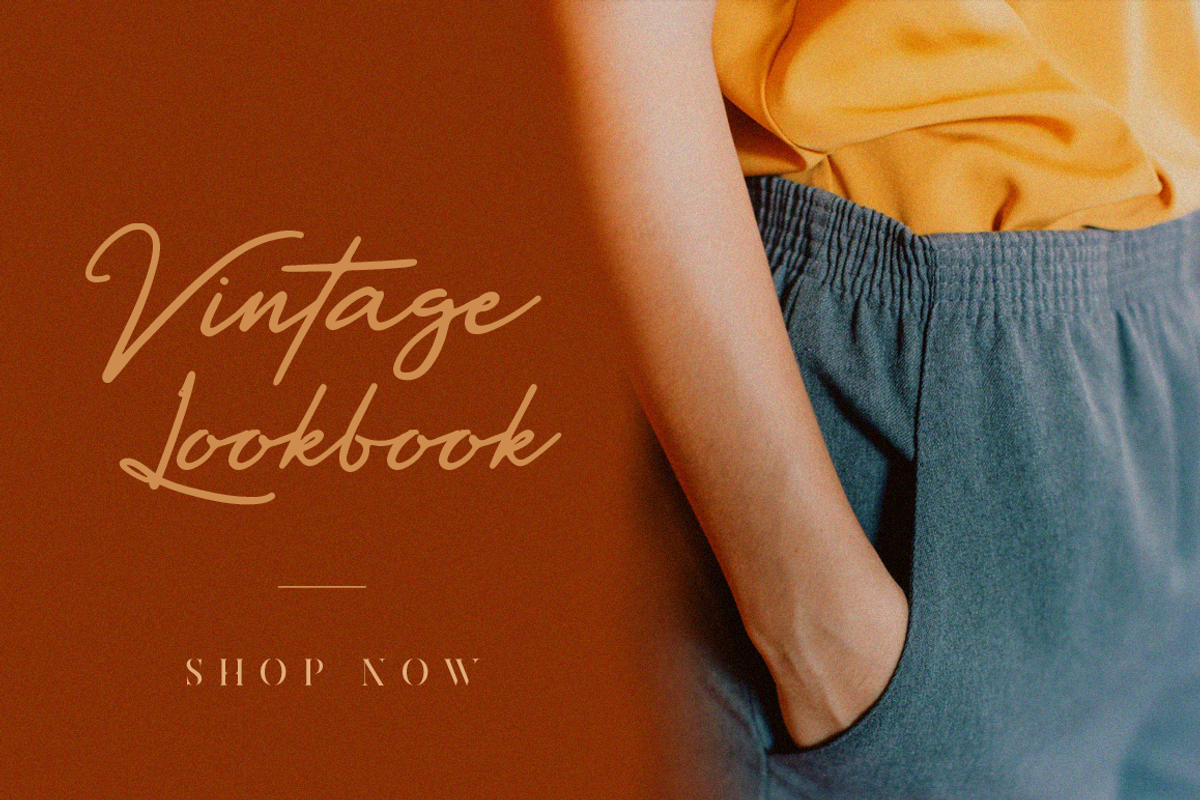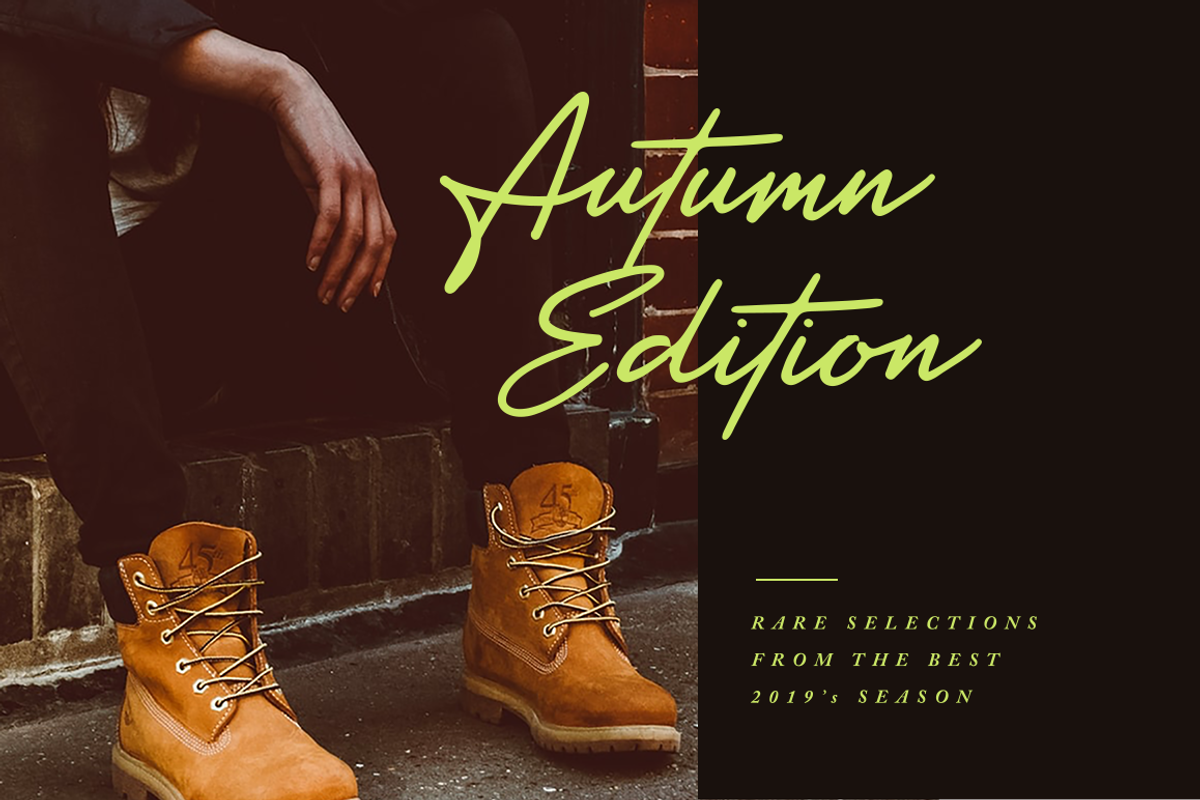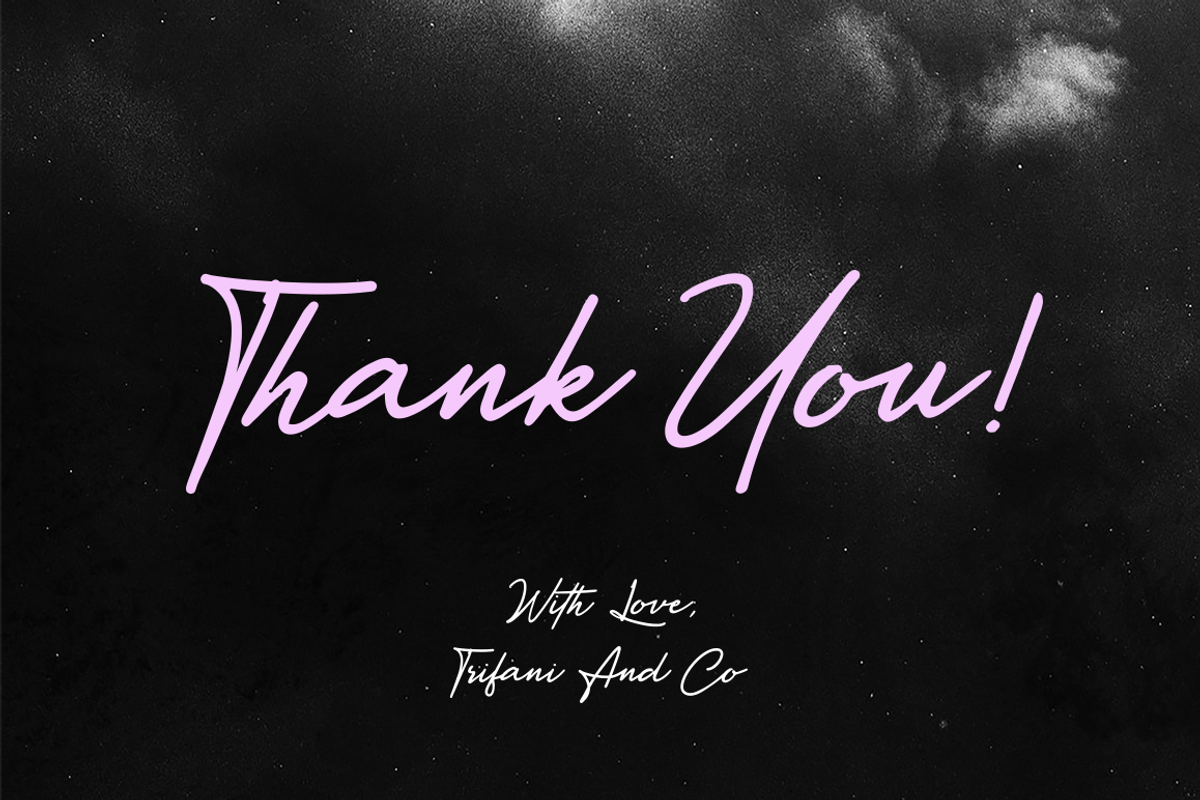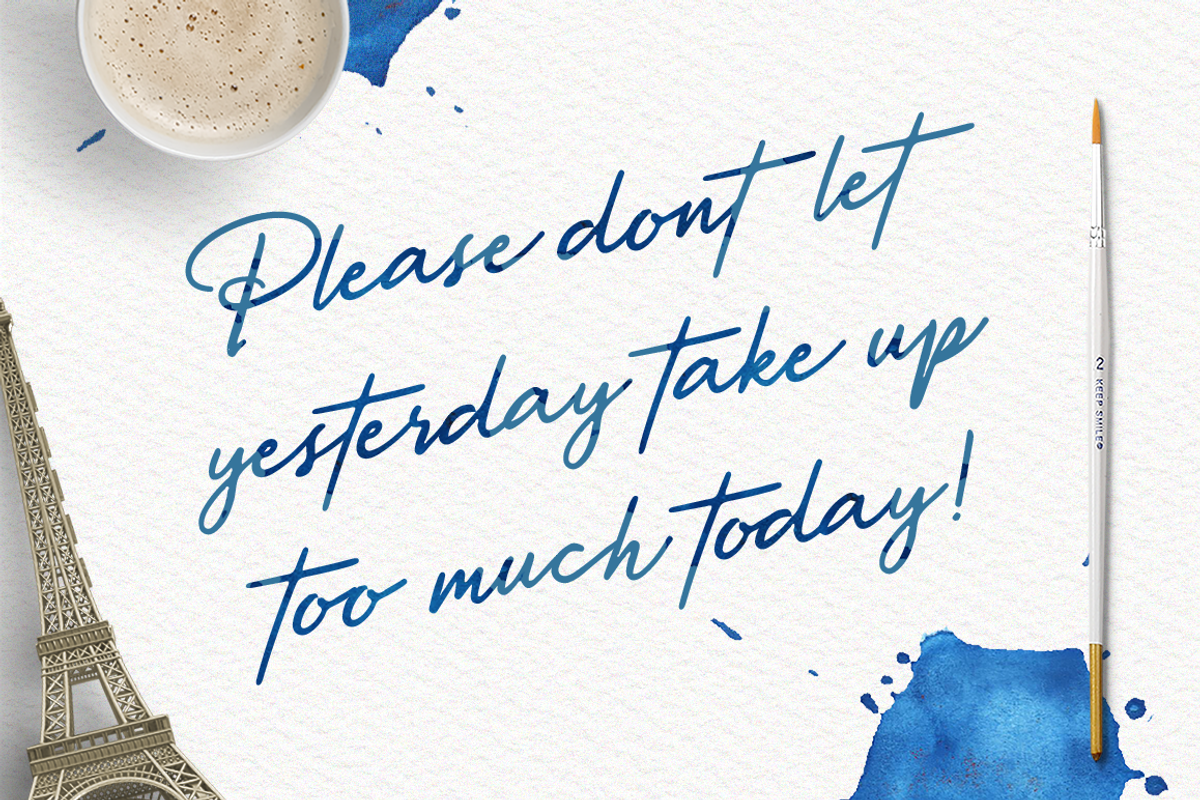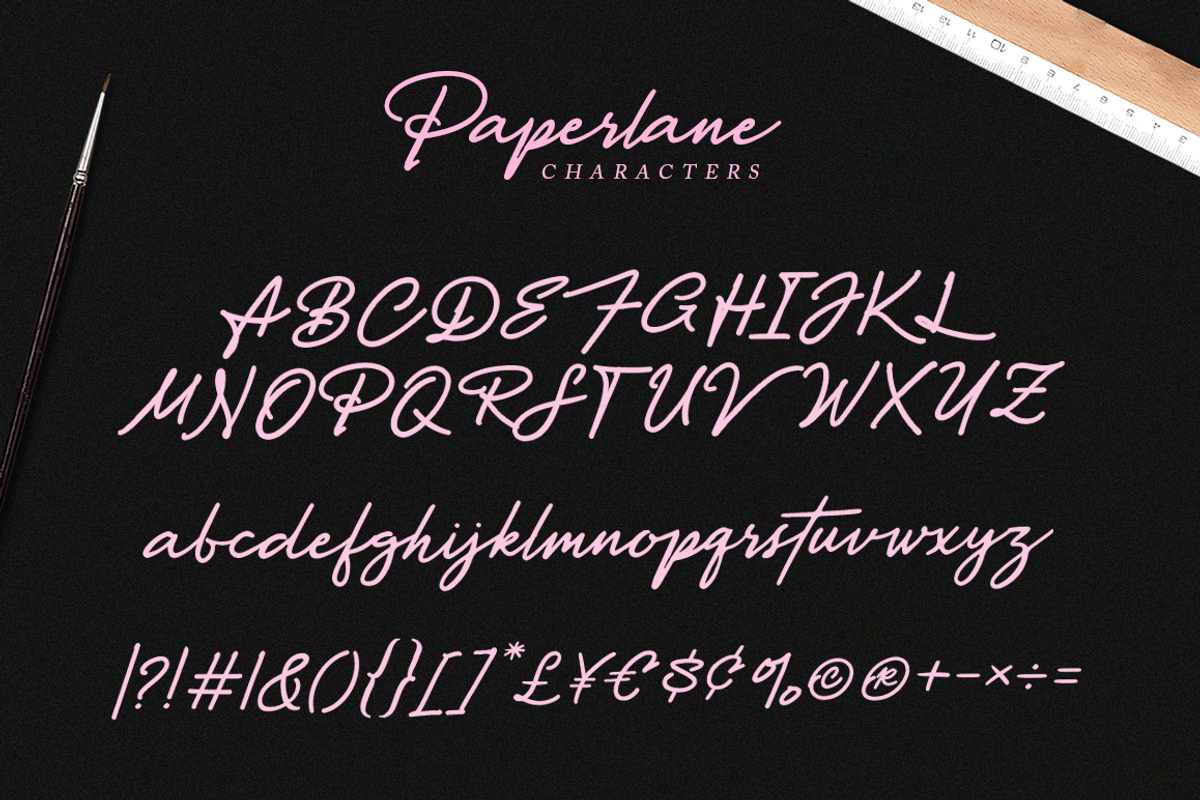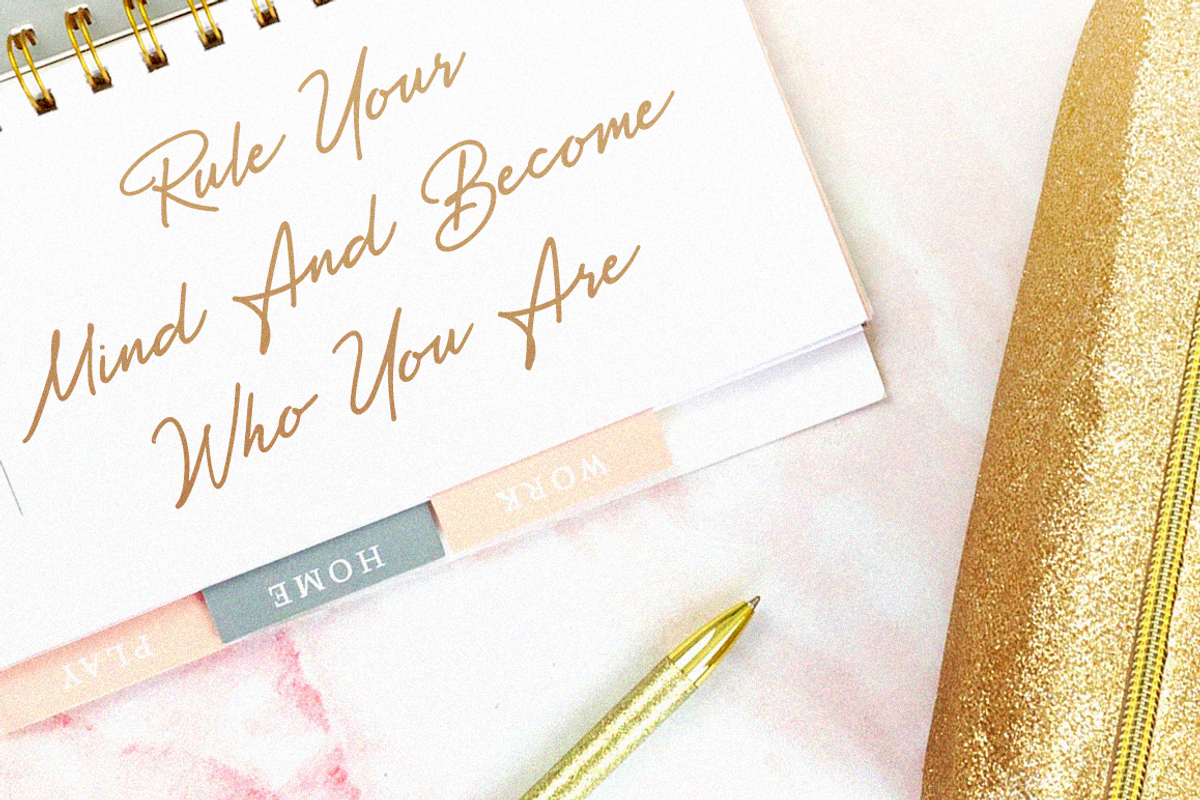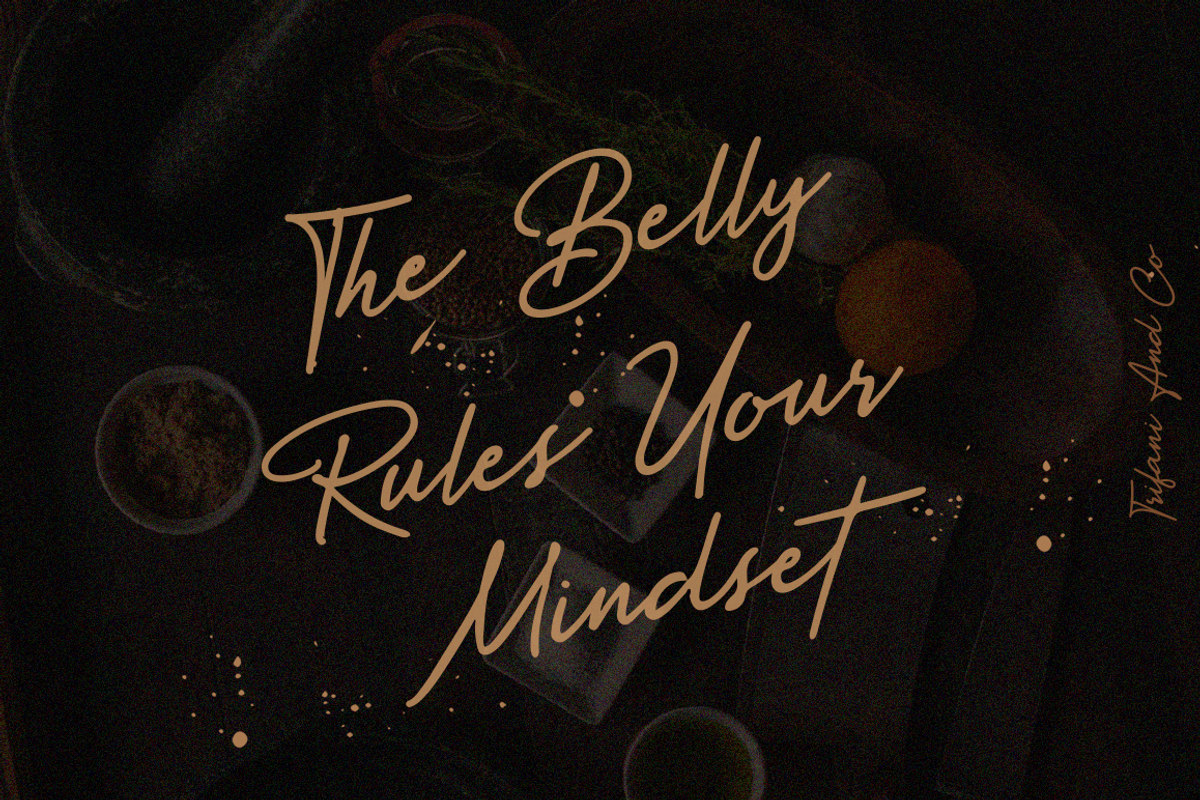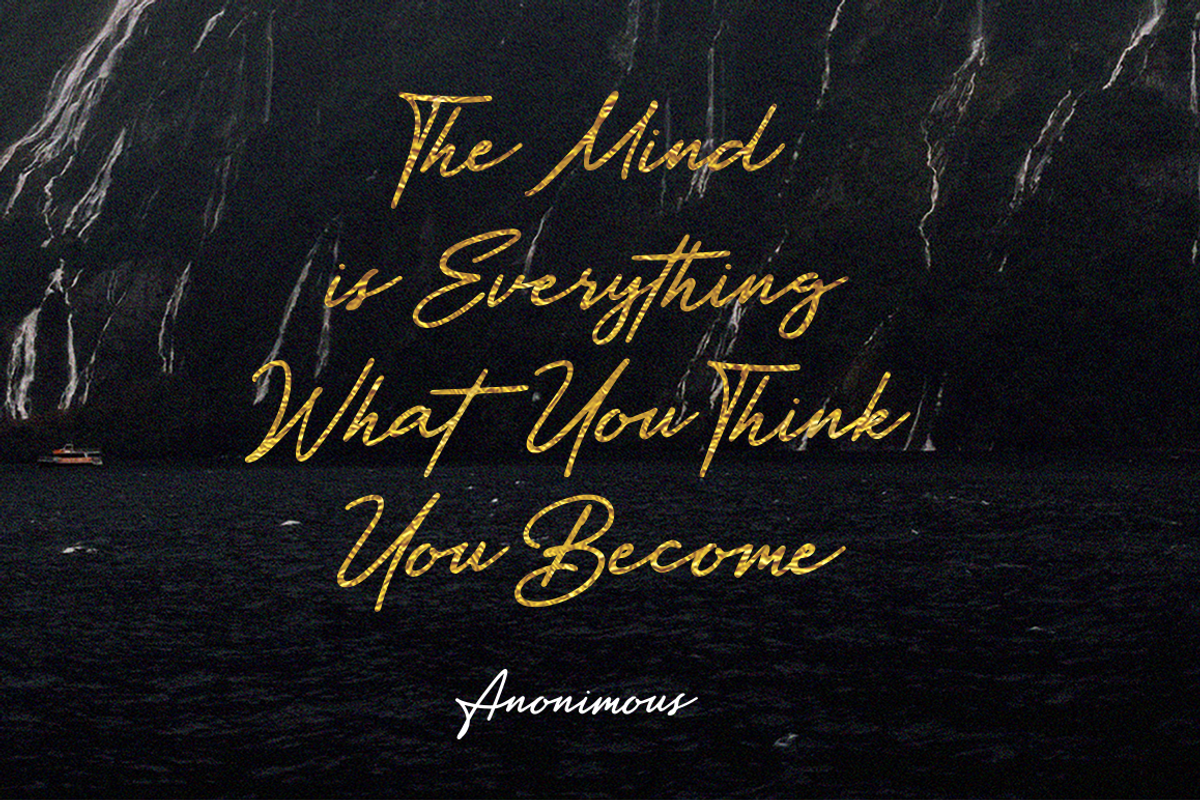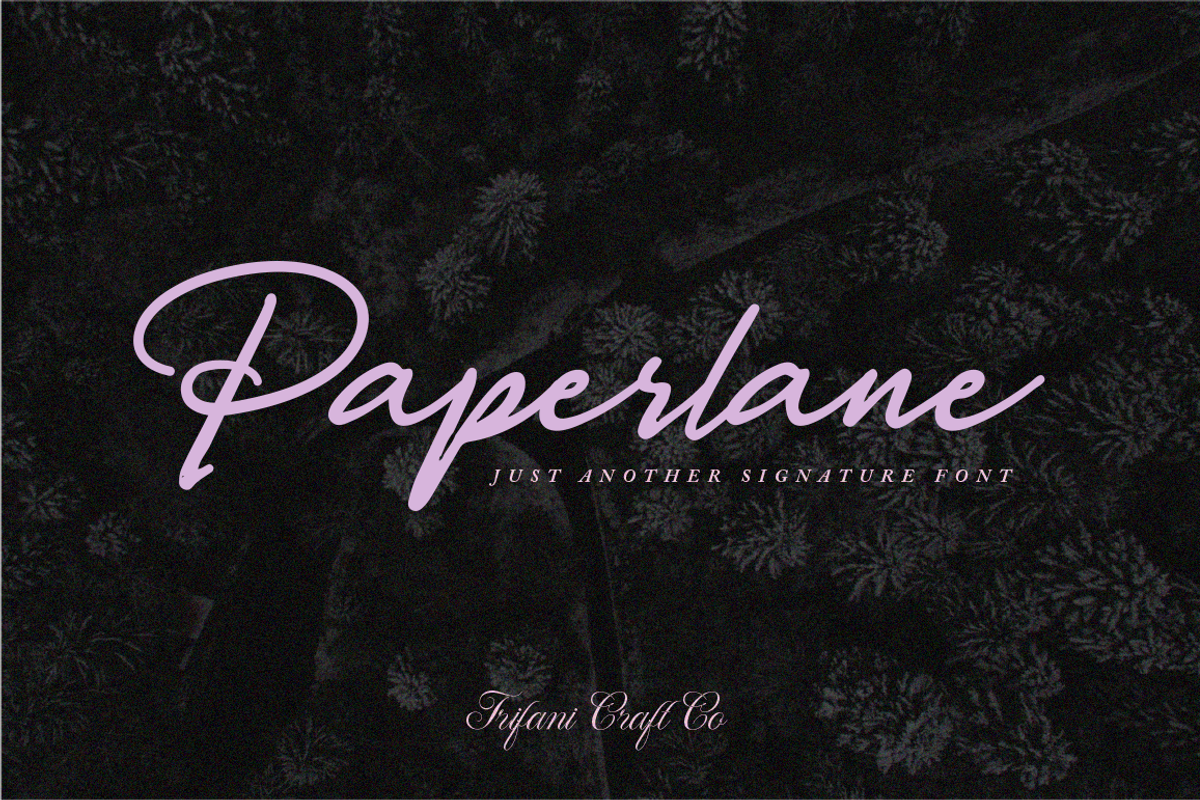
Paperlane - Organic hand-drawn font
Say hello to Paperlane! An authentic & organic hand-drawn script font with a personal charm. With quick dry strokes and a signature style, this font has been carefully designed to re-create natural handwritten text.
Perfectly fit for handwritten quotes, signature-style logos, stylish branding projects, and hand-crafted product & stationery designs.